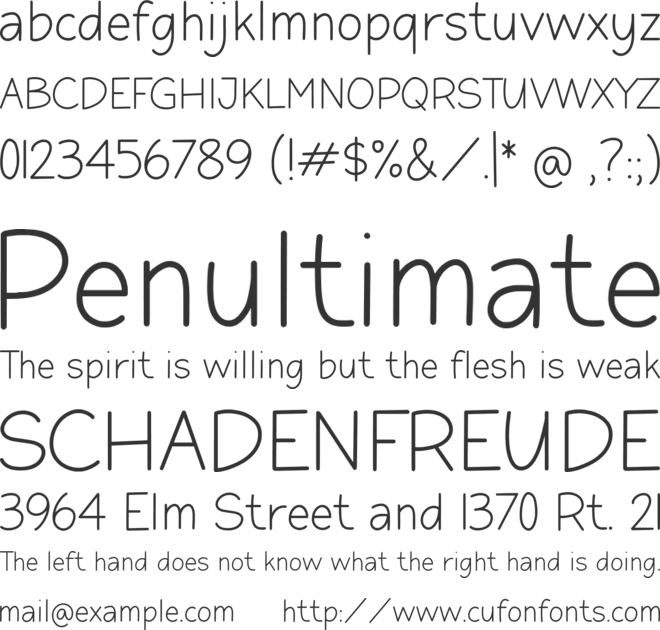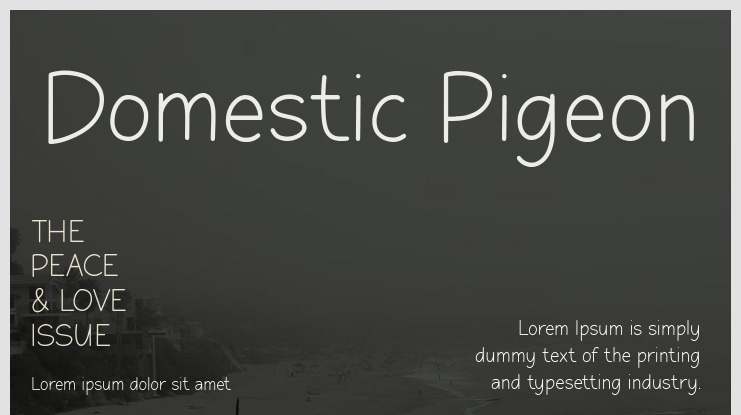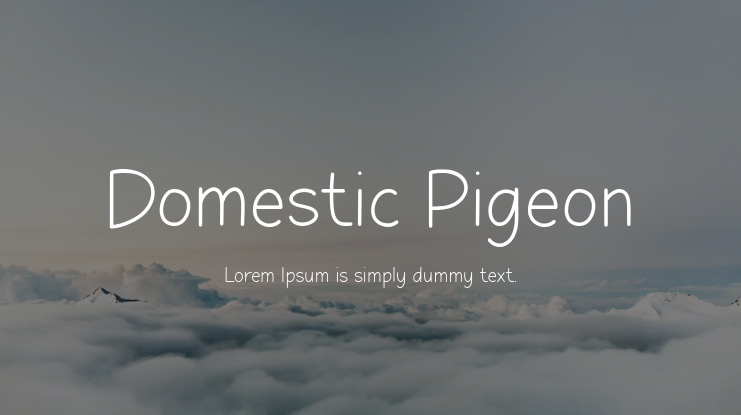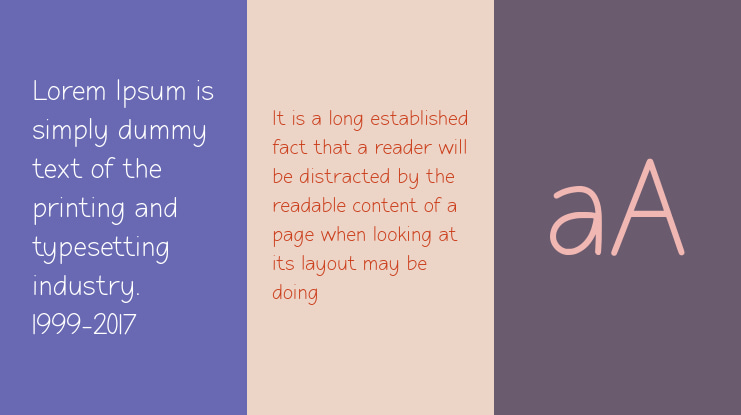
Domestic Pigeon Font
Introducing Domestic Pigeon, a Handwritten Font with a Cute Appeal!
Indulge in the cuteness and charm of Domestic Pigeon, crafted by Timurtype Studio. This delightful font captures the essence of whimsy and playfulness, bringing a touch of sweetness to any design. Its delicate and flowing letterforms add a handcrafted feel, perfect for greeting cards, invitations, and stationery.
With its lovable style and warm friendliness, Domestic Pigeon is ideal for creating designs that evoke joy and lightheartedness. Immerse your projects in the adorable charm of this cute handwritten font.
Key features of the Domestic Pigeon Font:
• A complete set of standard alphabet and punctuation characters